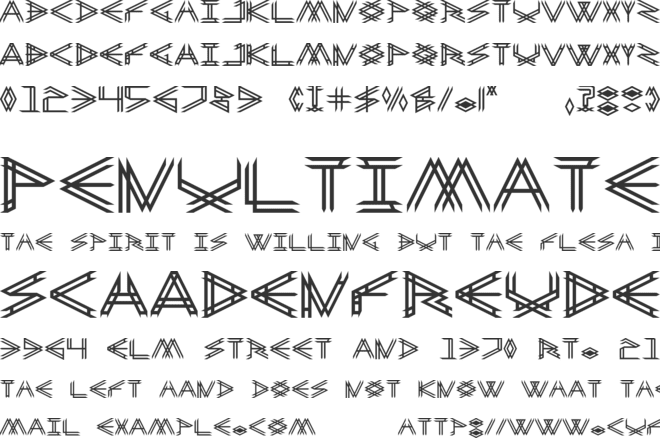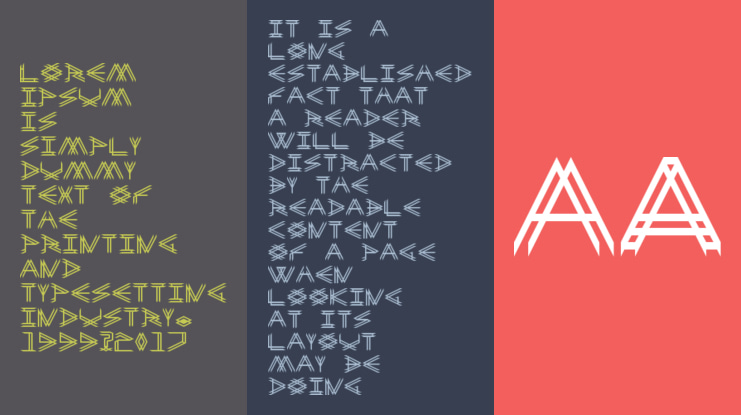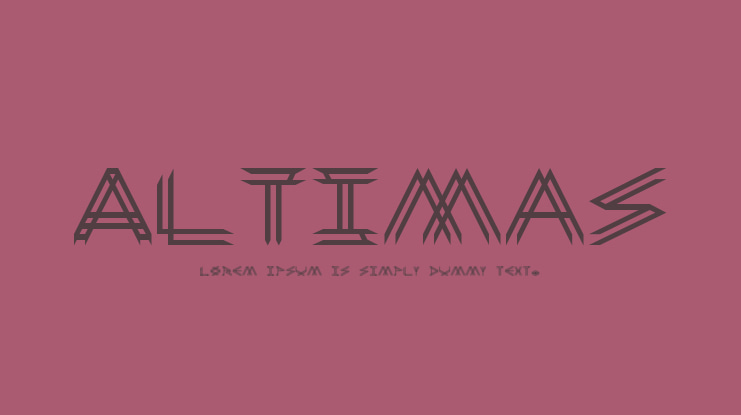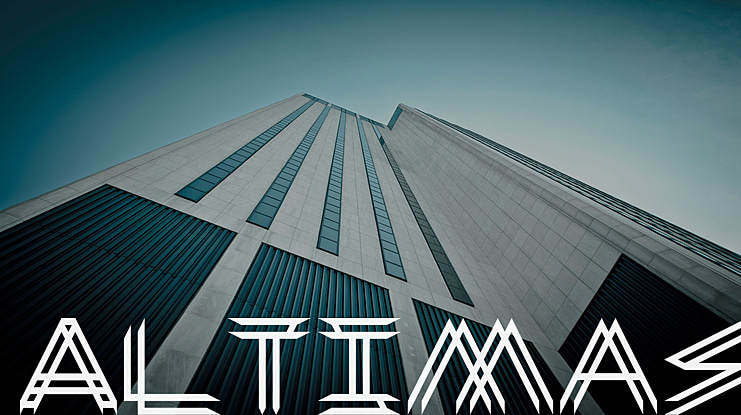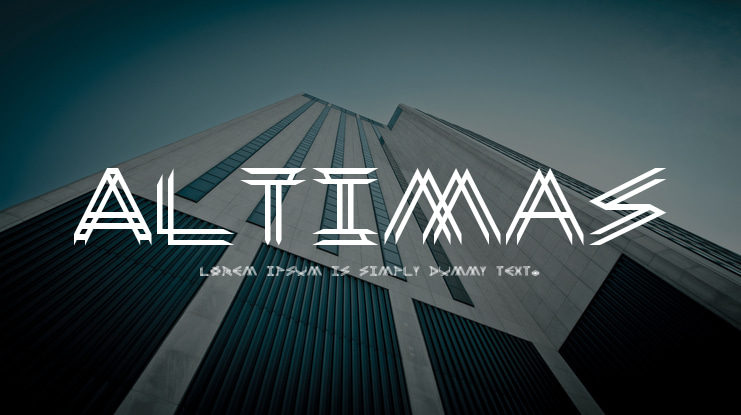
Altimas Font
One of my older designs, updated for 2019. This is two fonts in one (original on lowercase, fancy on uppercase). Limited character set/language support.